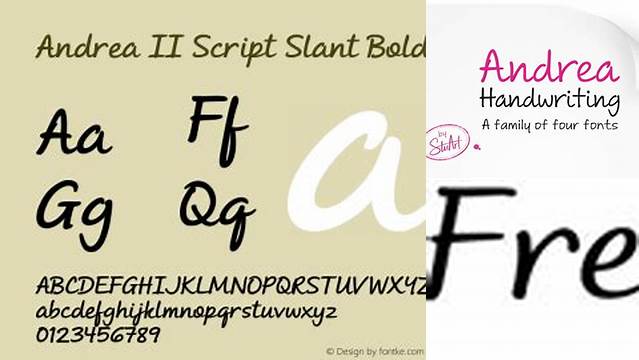
Andrea Script Font: Free Download For Handwriting Style
Hey guys! Are you on the hunt for a font that screams personality and charm? Look no further! The Andrea Handwriting II Script Slant Font is here to save the day. This font is perfect for adding a touch of authenticity and elegance to your projects. Whether you're designing invitations, crafting social media posts, or jazzing up your website, this font has got you covered. And the best part? You can snag it for free! Let's dive into why this font is a must-have for your creative toolkit.
What Makes Andrea Handwriting II Script Slant Font Special?
So, what's the big deal about the Andrea Handwriting II Script Slant Font? Well, it's all about that handwritten feel. Unlike those stiff, formal fonts, this one brings a personal touch to your work. The slight slant adds a playful, dynamic vibe that's sure to catch the eye. It's like you've personally penned each letter, giving your designs a unique and heartfelt appeal. Think about how this could elevate your wedding invites, making them feel more intimate and special. Or imagine using it for your blog headers to create a warm, welcoming atmosphere. The possibilities are endless!
Using Andrea Script Font in Your Projects
Now that you've got the Andrea Handwriting II Script Slant Font installed, it's time to put it to work! This font is super versatile, but here are a few ideas to get your creative juices flowing. Try using it for logos to give your brand a friendly, approachable feel. It's also fantastic for quotes and inspirational posters, adding a touch of elegance and sincerity. If you're a blogger, use it for your headings and subheadings to make your content more visually appealing. And don't forget about social media! This font is perfect for creating eye-catching graphics that stand out from the crowd. Just remember to use it sparingly and pair it with a simpler font for body text to ensure readability.
Andrea Script Font: Font Style Variations
One of the cool things about fonts is that they often come in different styles or weights. While the Andrea Handwriting II Script Slant Font is known for its slanted, handwritten look, it might also have variations like bold, light, or even italic versions. These variations can give you more flexibility in your designs, allowing you to create different moods and effects. For example, a bold version could be great for headlines, while a light version might work well for captions or smaller text elements. Check out the font family to see what options are available and how you can use them to enhance your projects.
Andrea Script Font: Font Alternatives
Andrea Script Font: Font Pairing Guide
Andrea Script Font: Design Inspiration